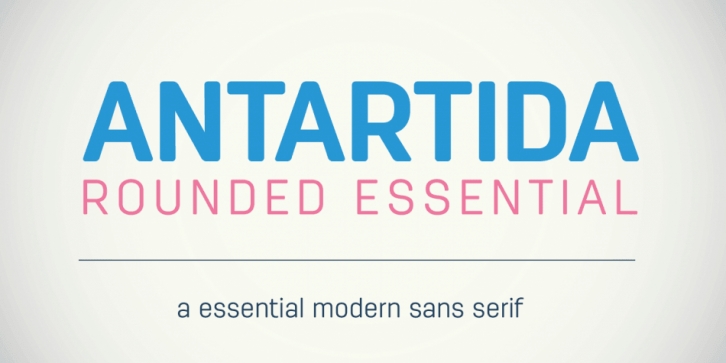
Antartida Rounded Essential is a sans serif font family. This typeface has four styles and was published by Los Andes Type.
Antartida Rounded Essential is a sans serif with rounded terminals, its simple, kind of neutral feeling, is functional, clean and minimal, rounded terminals make it friendly and warm. Is a family of 4 fonts, 2 weights and in italics.